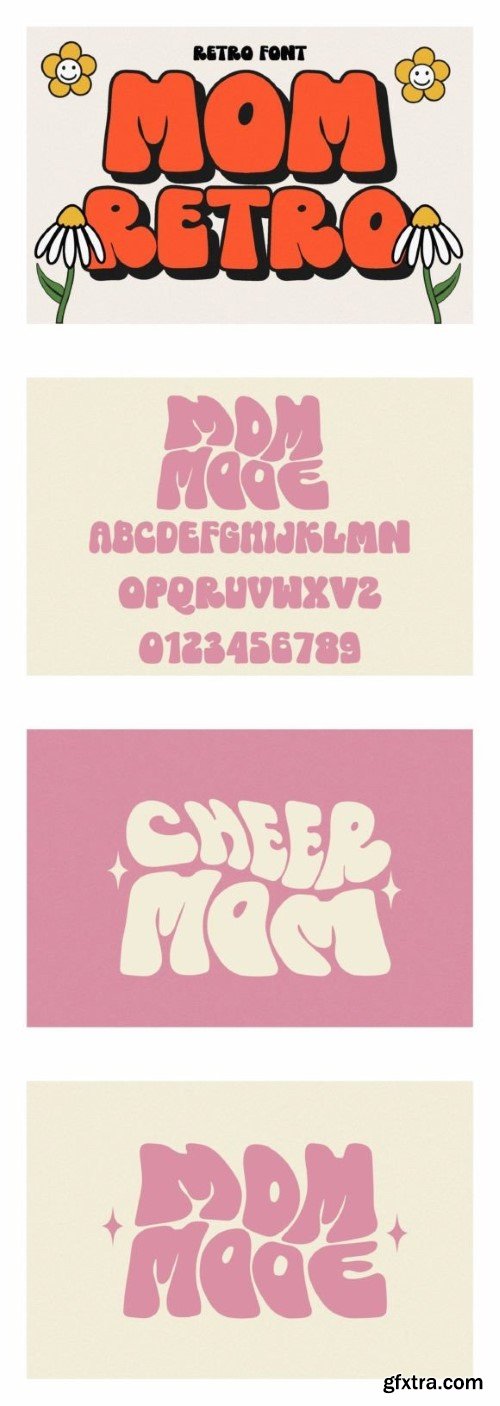
妈妈复古字体
Mom Retro font is an incredibly cute, and assertive display font. Add it to each of your party invitations, gathering, or pretty much any design that requires a touch of youth and joy.